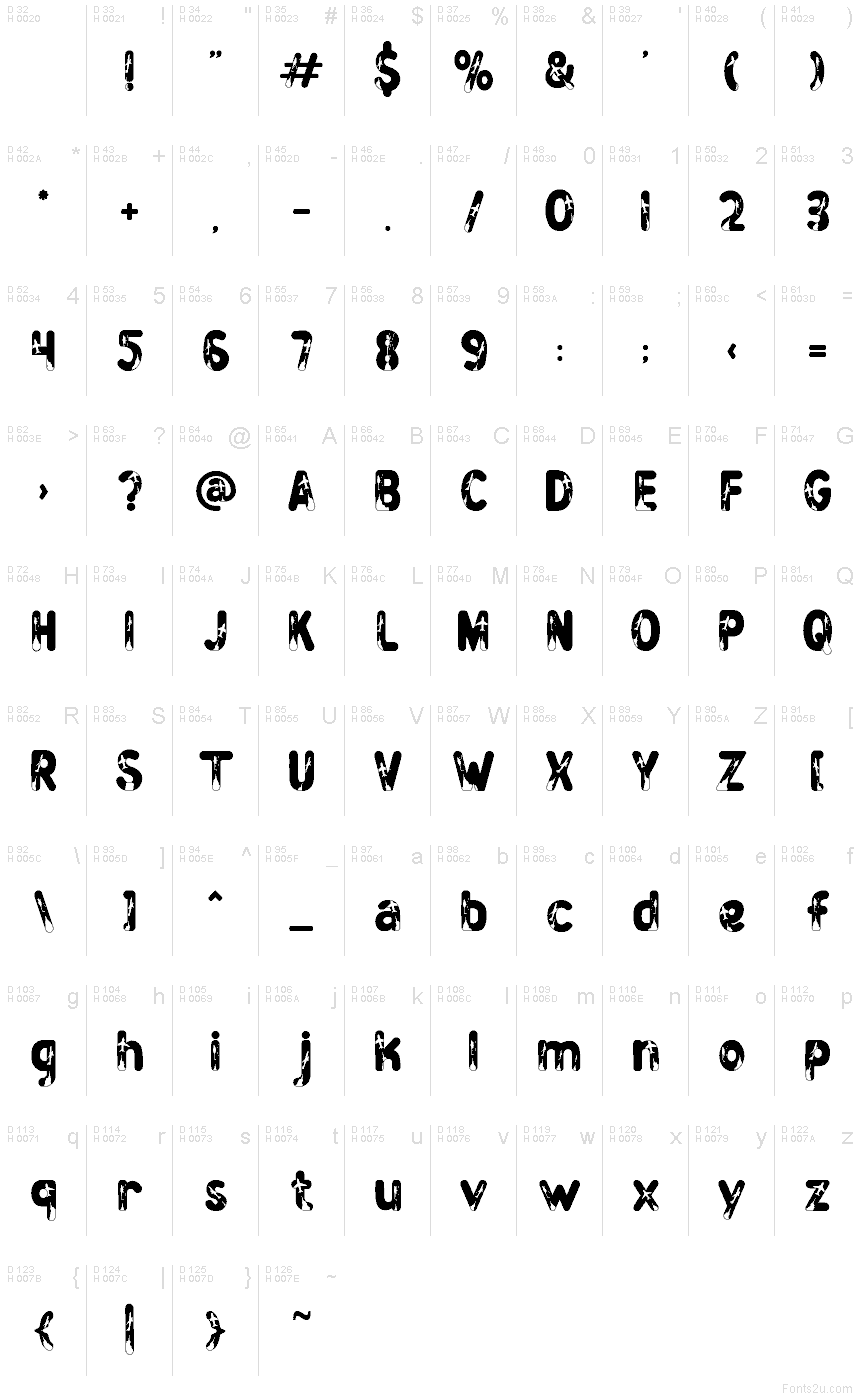
Zany Route Plane
Zany Route Plane font by PutraCetol Studio is a bold decorative display font with distressed texture and solid geometric forms. Each character has simple, clean lines and rounded edges for an artistic look that is whimsical yet modern. With its style of emphasis driven by high-contrast contours, this typeface communicates individuality and a visual sense of adventure.
Whether it’s graphic advertisements or physical products you are working on, Zany Route Plane will make the final presentations playful. The font can also take part as text in magazines, as cover titles or even main headlines in art books, event posters, product packaging designs, greeting cards and others.